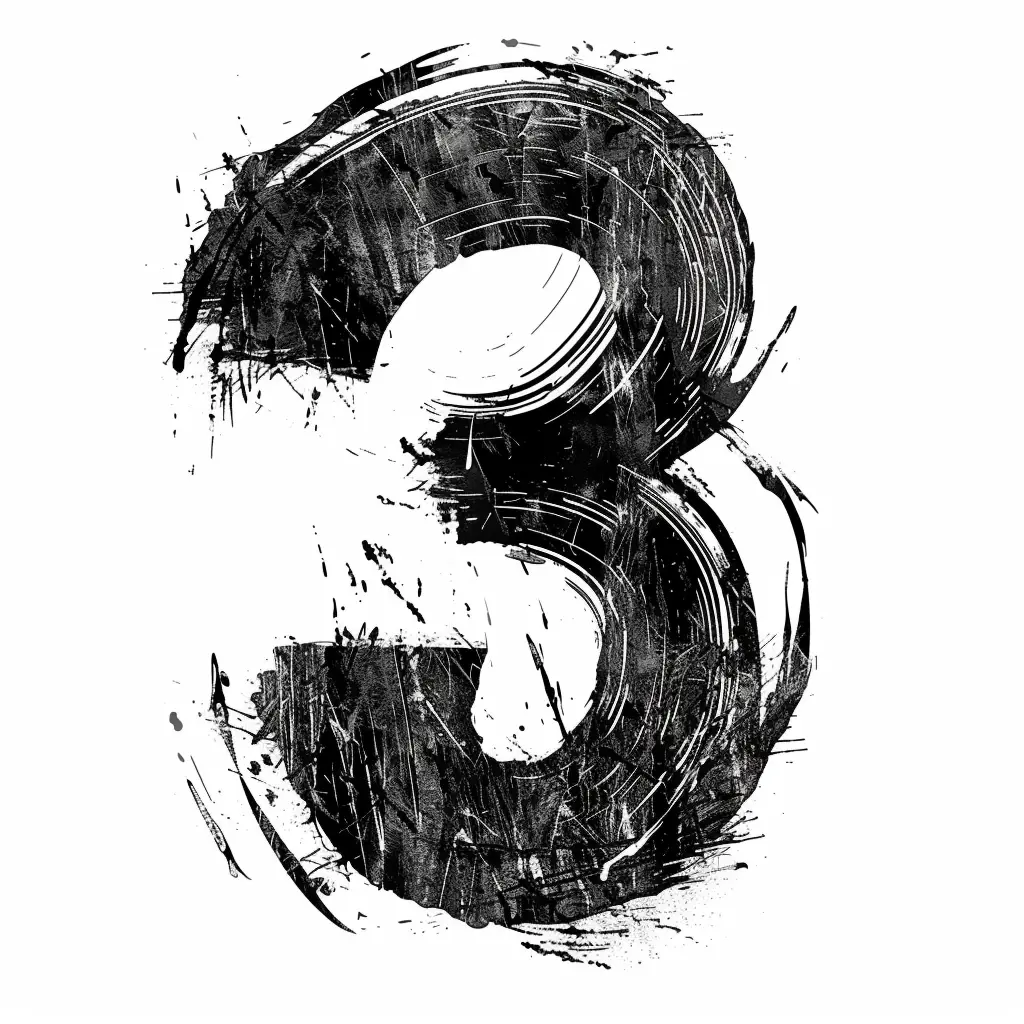
The image features a stylized, artistic representation of the number "3" rendered in black and white. The design employs a textured, brushstroke-like technique with splatters and layered lines, creating a dynamic, grungy aesthetic. The contrast between the dark, textured areas and the white negative space emphasizes the number’s form, giving it a bold, expressive appearance.